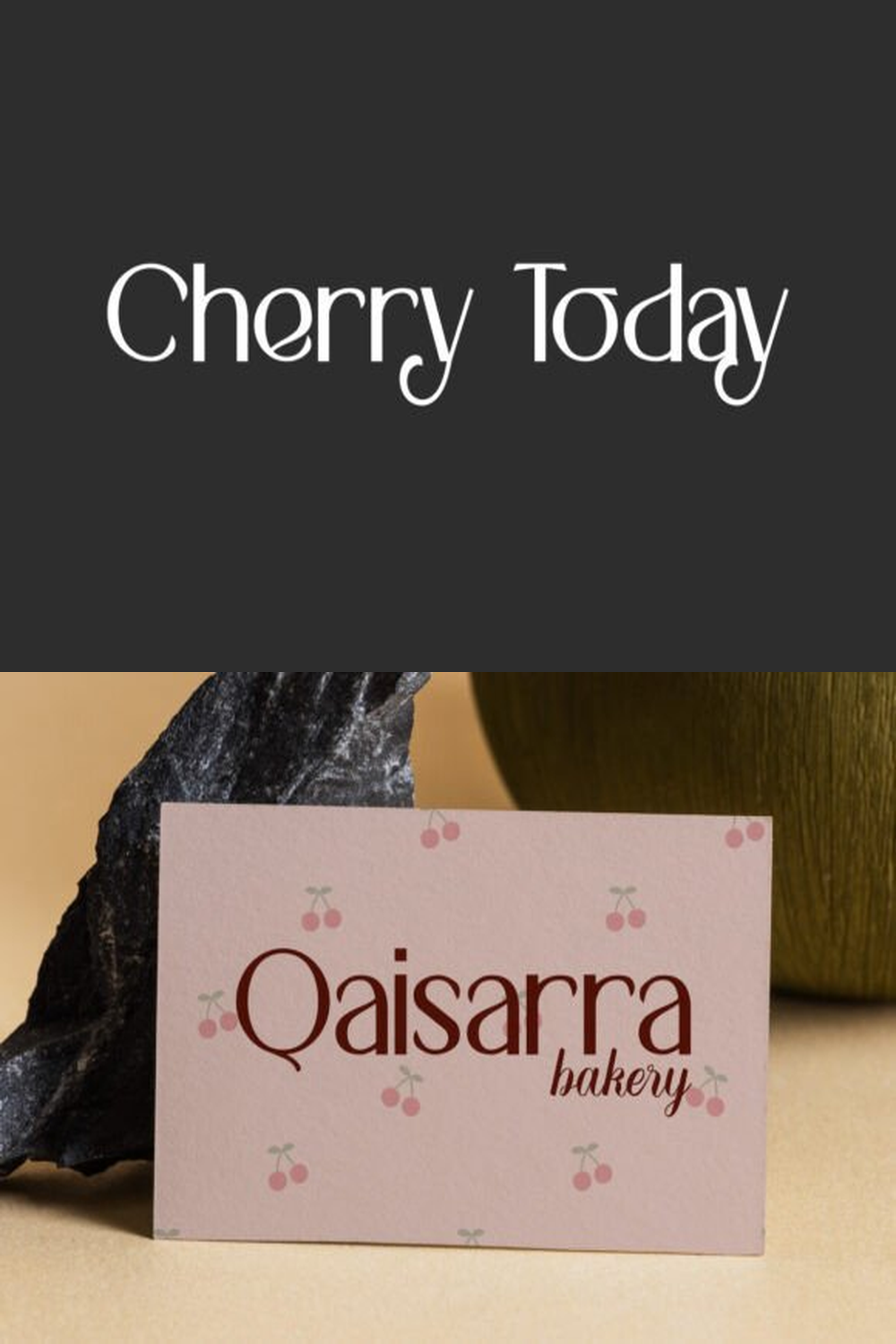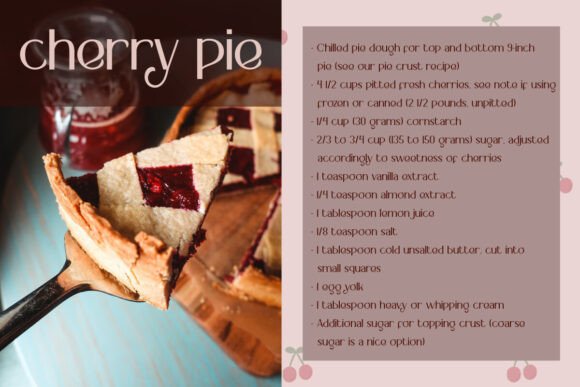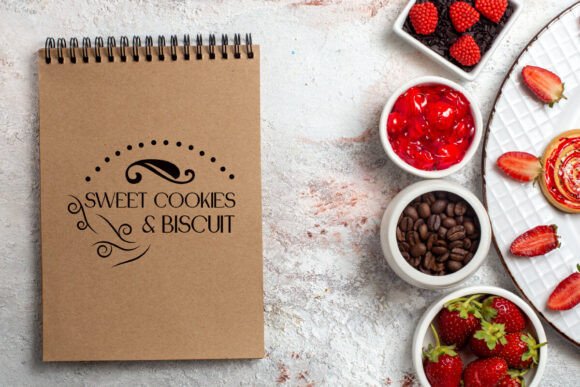
Cherry Today Font: Elegant Sans Serif for Modern Branding
About the Cherry Today Font
Introducing the Cherry Today Font, a beautifully crafted typeface designed to elevate your creative projects. Cherry Today Font is a beautiful modern stylish sans display font. The font has a beautiful shape and will never get old because it always impresses anyone and will be perfect for many design, such as brochure, business card, custom design, cover, gift box, invitation, label, poster, product packaging, quote, screen printing, stationery, website, and more!
Cherry Today Font Usage Examples